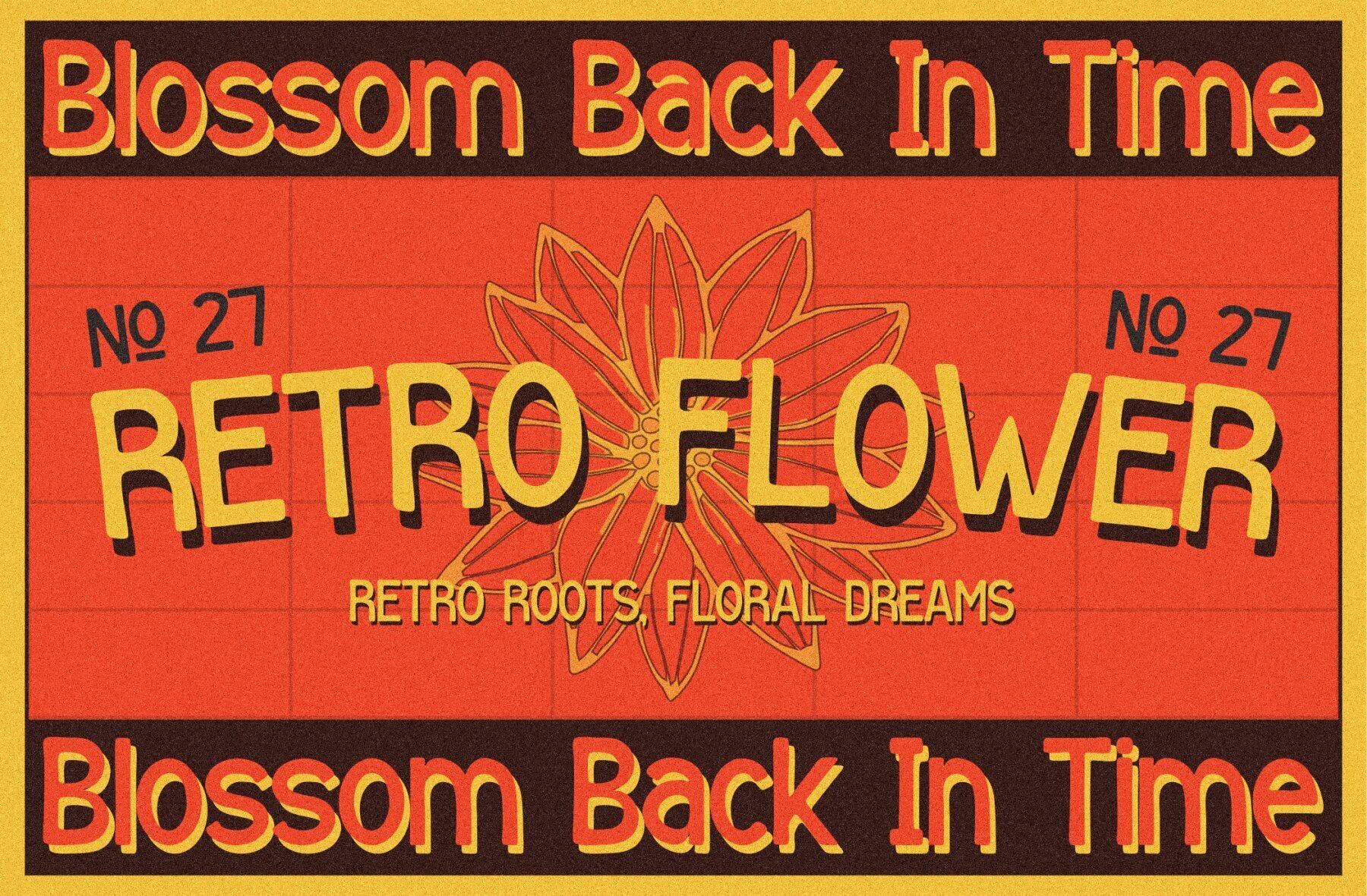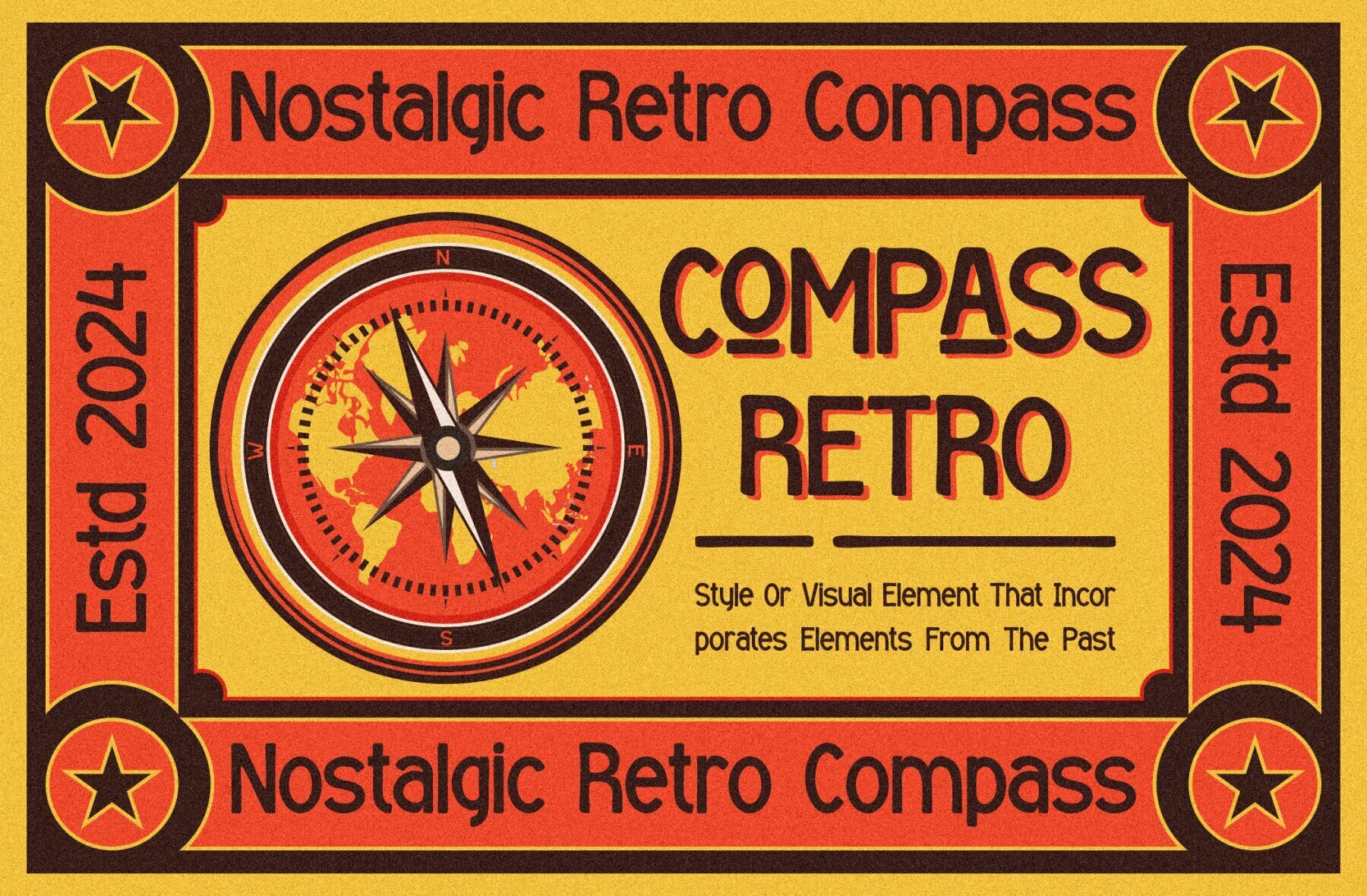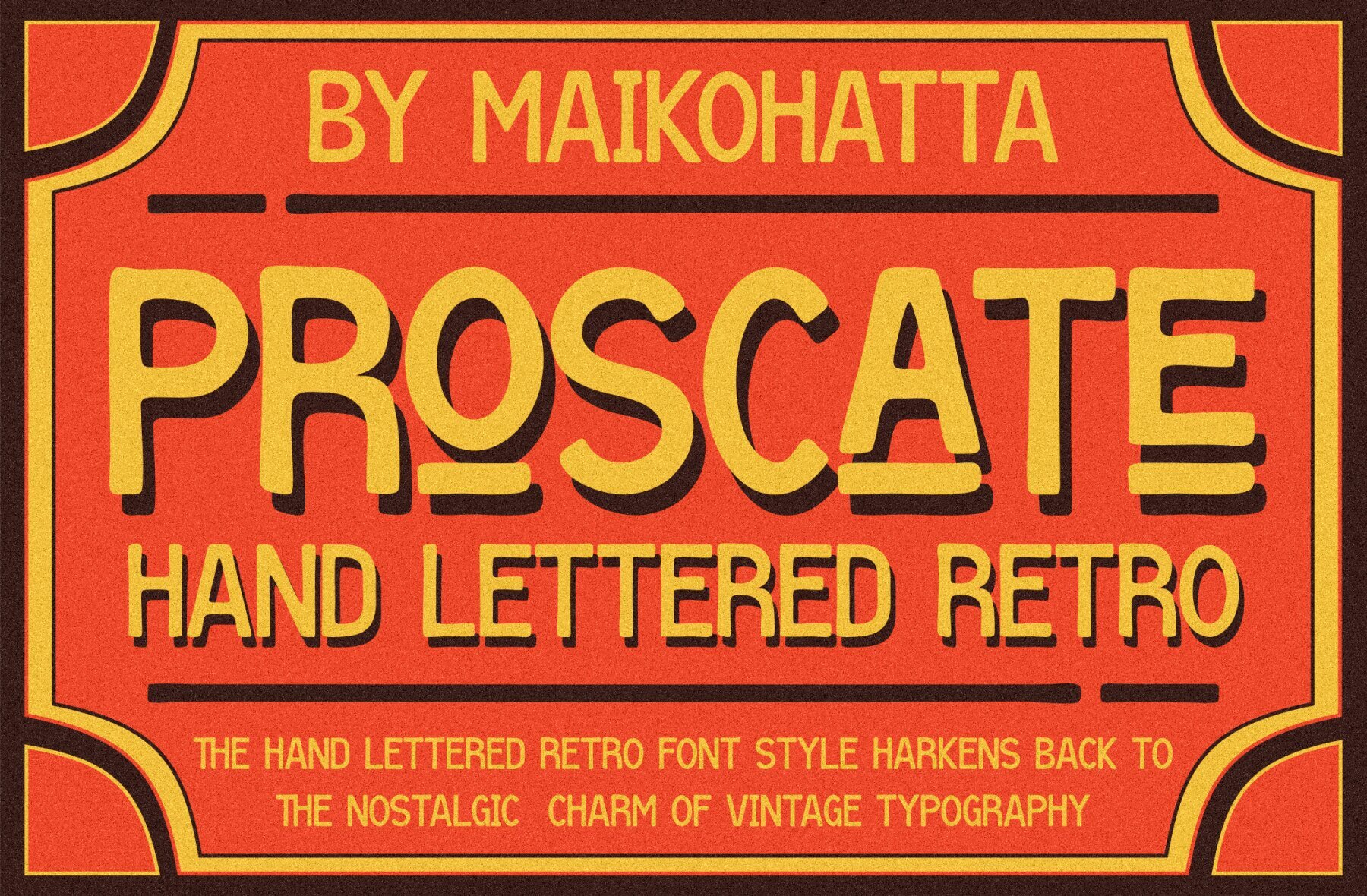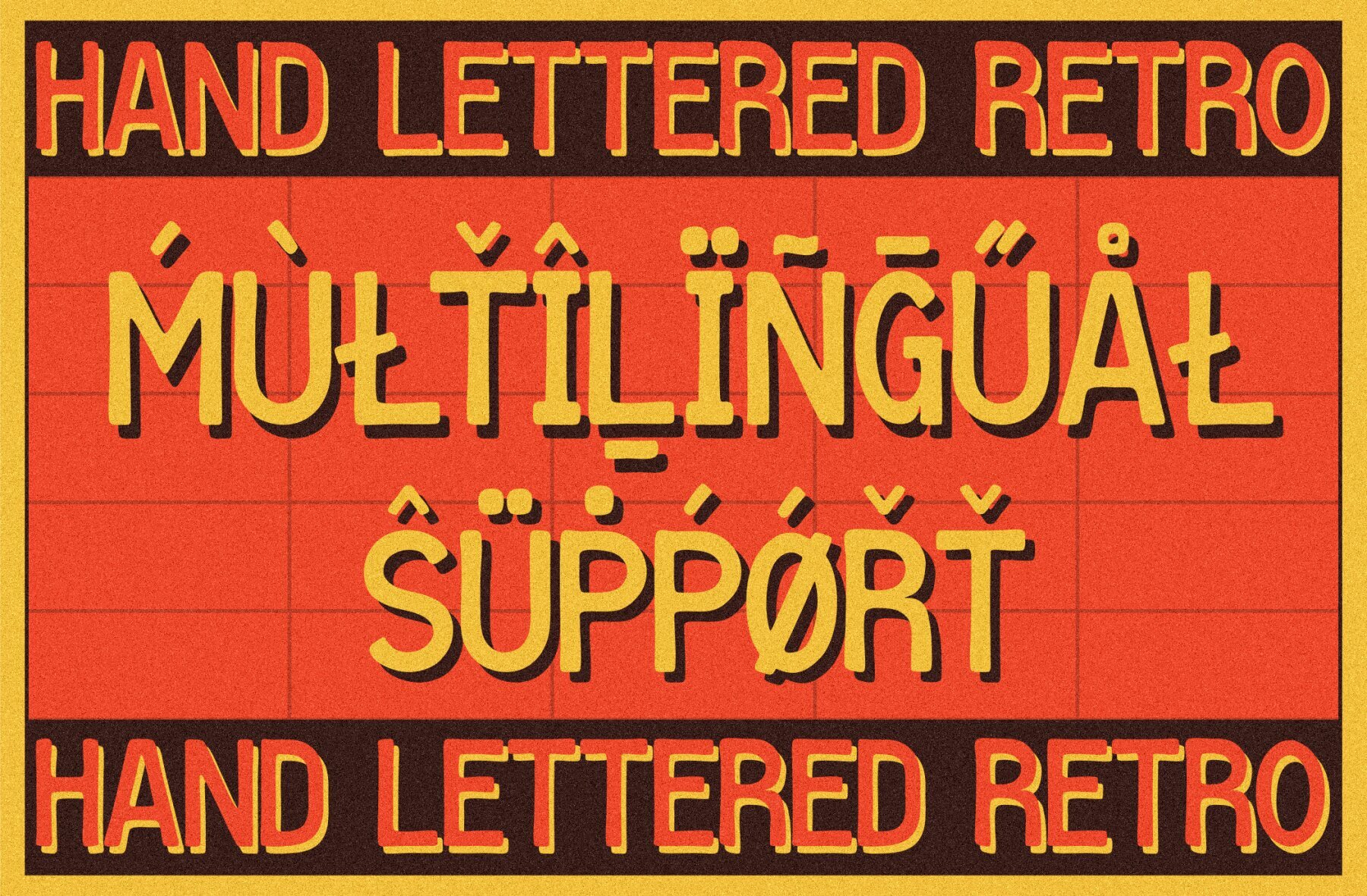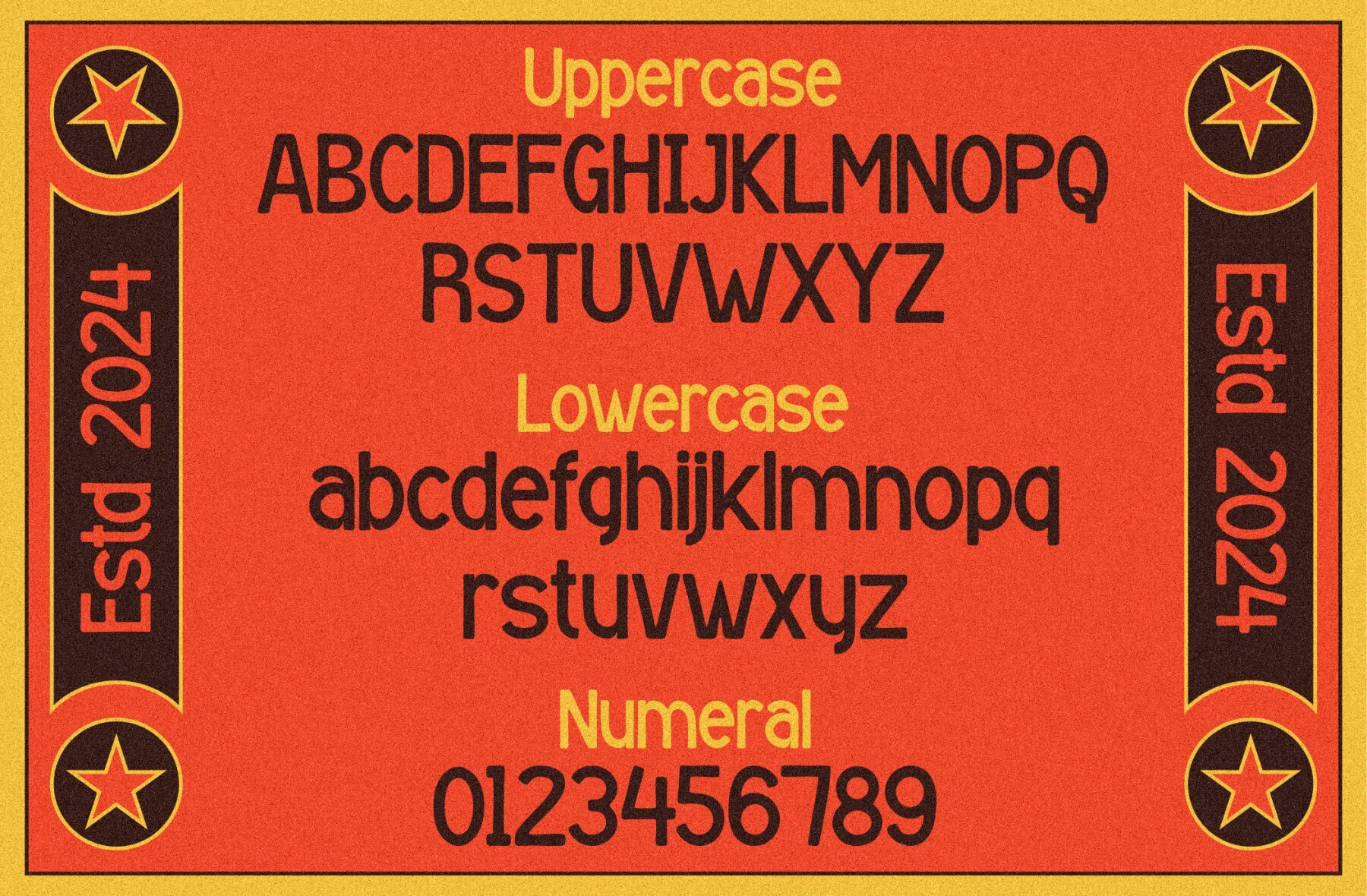
Proscate Font
Proscate Regular
Proscate is a unique font that combines the handwritten style often found in comics and cartoons, characterized by its reflection of joy, cheerfulness, and a light atmosphere. Proscate is perfect for designs that emphasize playfulness and fun. Use it in poster designs, invitation cards, comics, or promotional materials targeting a younger audience or anyone seeking a whimsical feel.Proscate: Hand-Lettered Retro Font with Playful Charm
Ideal for Fun and Playful Design Projects